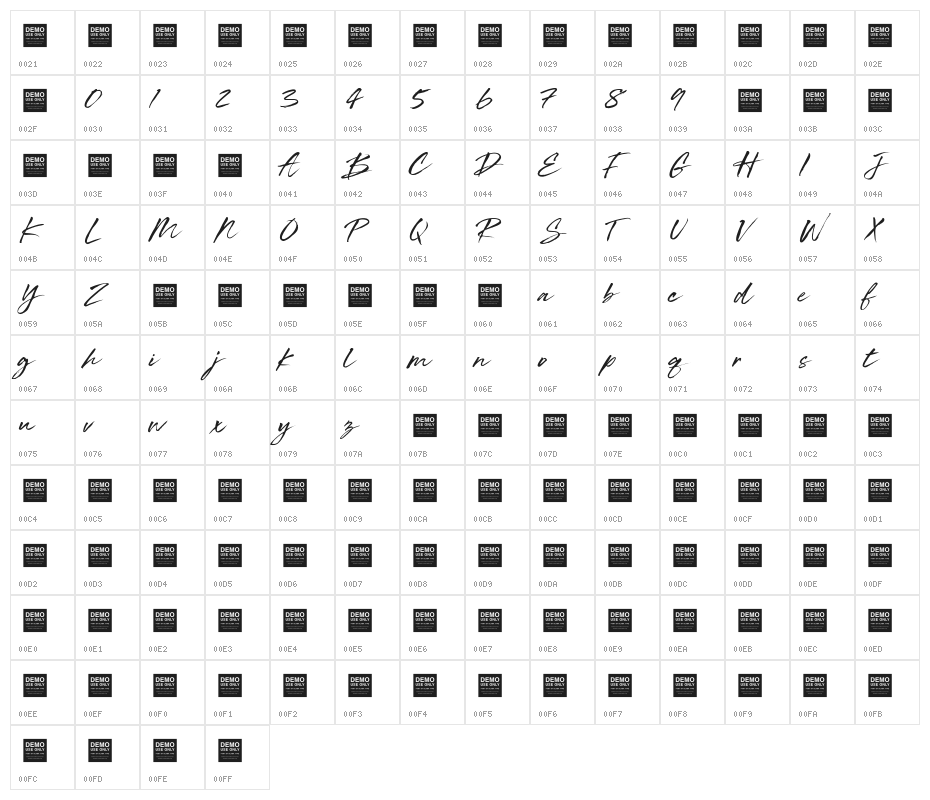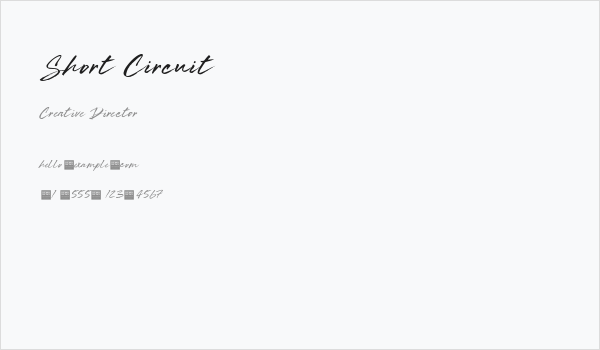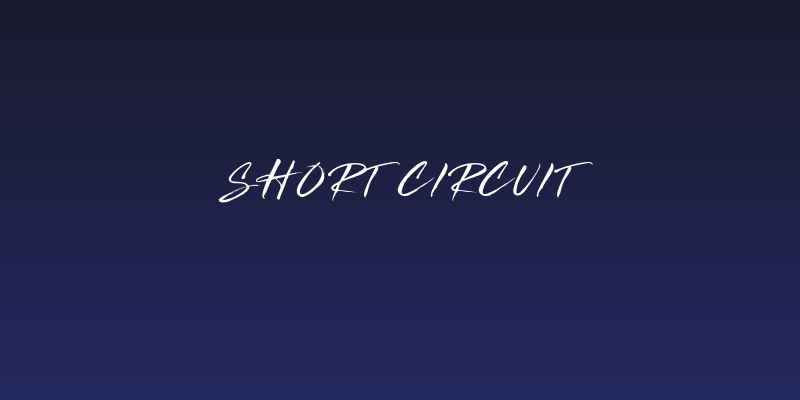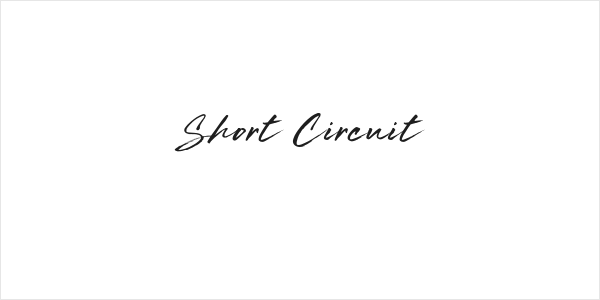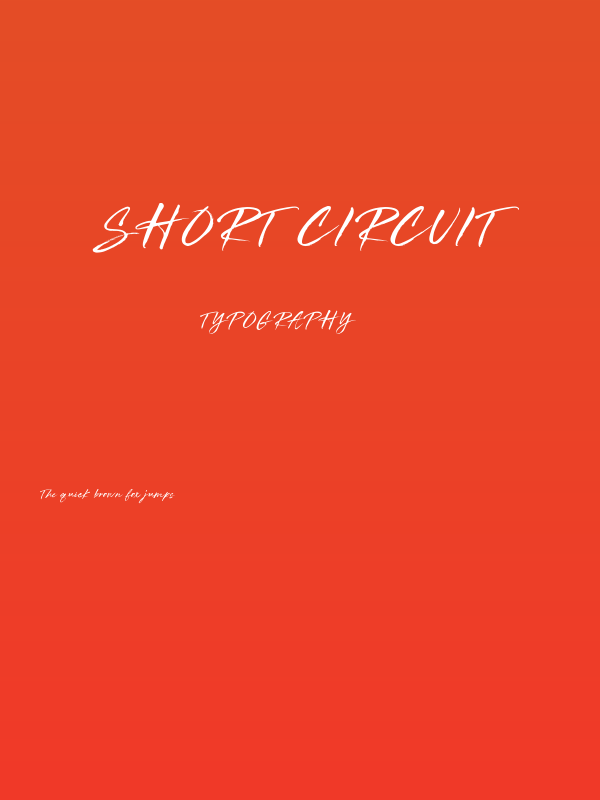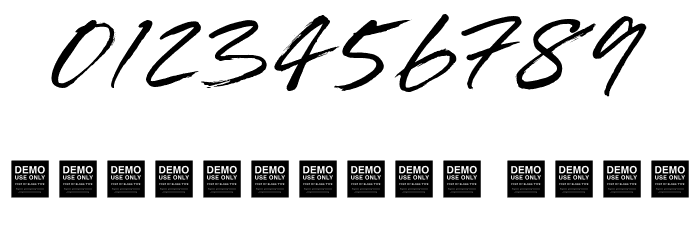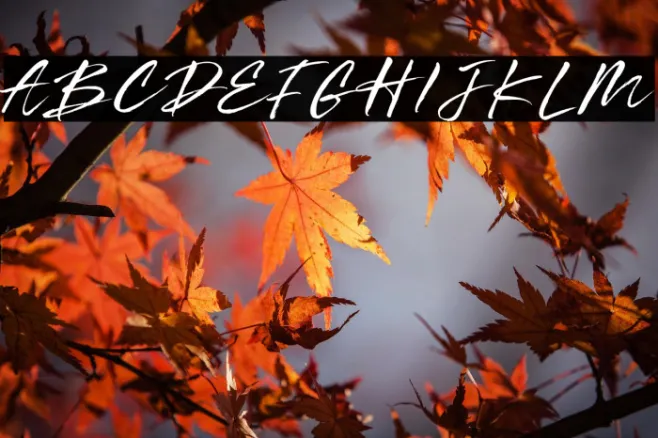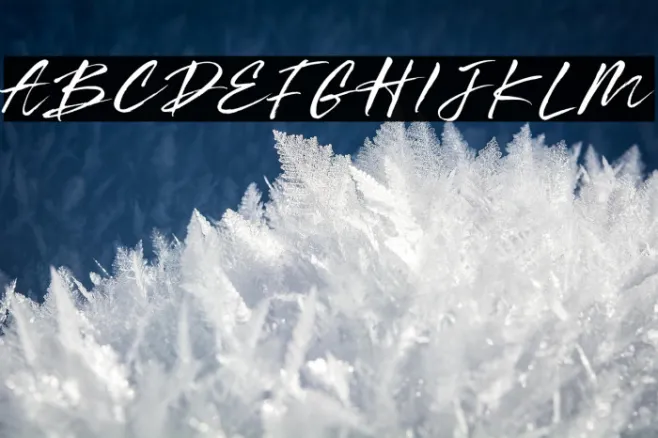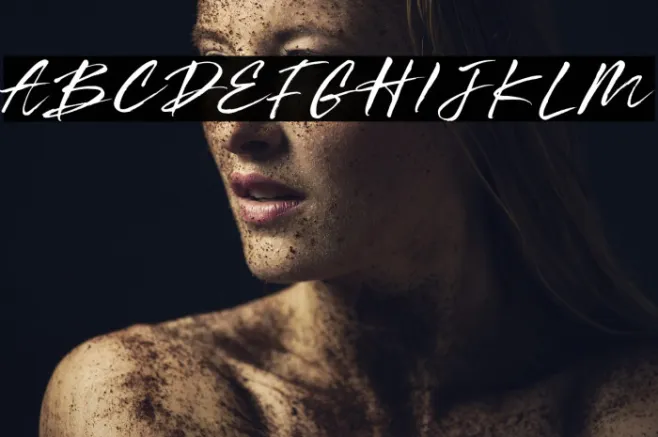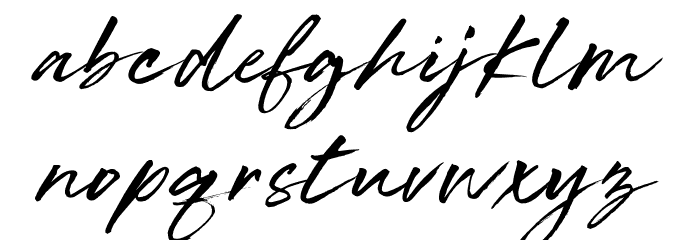
Short Circuit Font
Short Circuit Description
This font features a dynamic and fluid script style, characterized by its elegant, flowing strokes and a handwritten appearance. The letters are connected in a cursive manner, giving it a personal and artistic touch. The uppercase letters are bold and slightly slanted, while the lowercase letters maintain a consistent flow, enhancing readability. The numbers follow the same script style, ensuring uniformity across all characters. This font exudes a sense of creativity and spontaneity, making it suitable for projects that require a personal or artistic flair.
| Proposed Projects | Ideal for wedding invitations, greeting cards, personal branding, and artistic projects. |